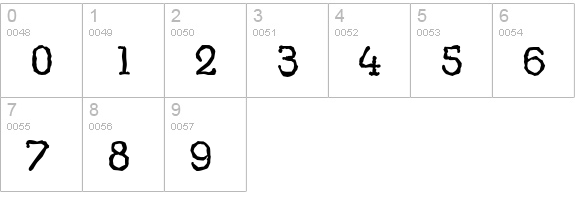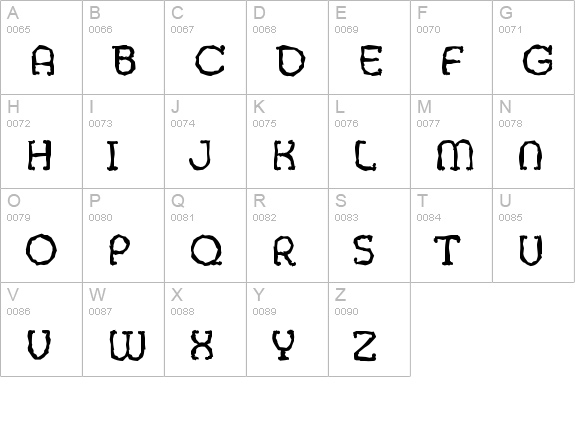
MexicoRandom-Regular Font Details
MexicoRandom-Regular is the standard, neutral variant in the MexicoRandom typeface family \xE2\x80\x94 well suited to general body text, paragraphs, and standard typographic work.
MexicoRandom-Regular font is a versatile and stylish typeface that exudes a sense of creativity and uniqueness. With its playful yet clean design, this font is perfect for a wide range of design projects, from branding to editorial design. The irregular and dynamic shapes of the letters give a sense of movement and energy, making your text stand out. What's even better is that MexicoRandom-Regular font is completely free to download at FontsMarket.com. This means you can easily add this eye-catching font to your collection without having to worry about any costs. Whether you are a professional designer or a hobbyist looking to spice up your projects, MexicoRandom-Regular font is a fantastic choice that won't break the bank. Download it today and start creating stunning designs with this unique and free font!